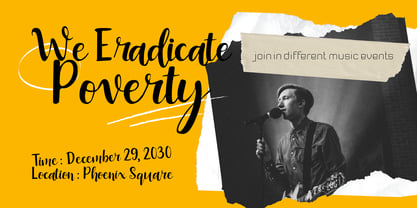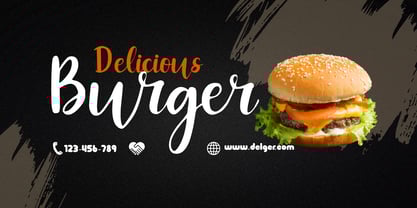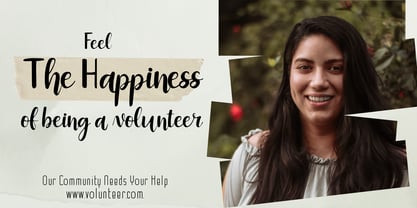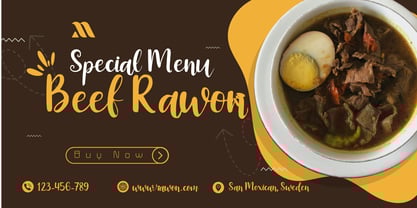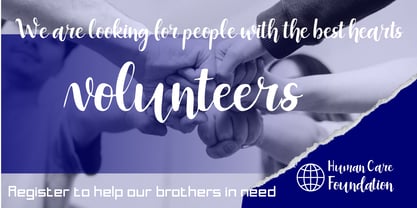
Murisa Russel
by Murisa Studio
The Murisa Russel Font Family was designed by Lili Sadili and published by Murisa Studio. Murisa Russel contains 1 styles. More about this family
Hello, how are you?, It's great that we can be here again today. Today we would like to present another font that we have created with all our hearts. The name is Murisa Russel. This font is very meaningful to us because starting from this font we have improved the ligature in various accented letter writings. This writing is often found by our friends in Eastern Europe. We really hope that the people there can use this font well. Of course this also applies to people in other parts of the world. Happy creating and get success with Murisa Russel.